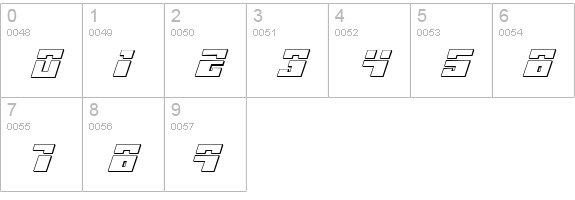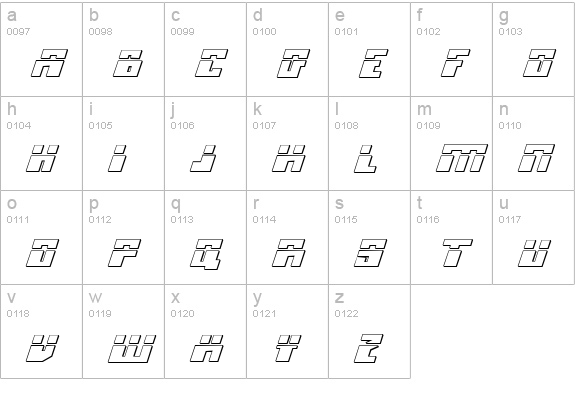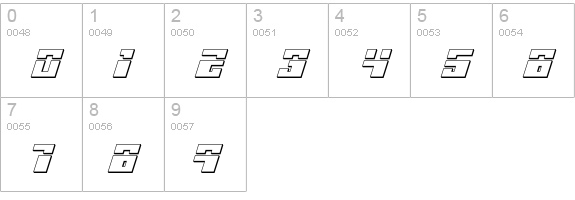
Micronian Laser 3D Italic is a distinctive, italic variant in the Micronian typeface family \xE2\x80\x94 well suited to design and typography projects.
Introducing Micronian Laser 3D Italic font - a futuristic and visually striking typeface that exudes a sense of modernity and innovation. This unique font features sleek lines and intricate details that give it a three-dimensional effect, making it perfect for adding a touch of sophistication to any design project. The Micronian Laser 3D Italic font is not only stylish and eye-catching but also versatile and easy to read, making it suitable for a wide range of applications, from branding and advertising to web design and print materials. Whether you're looking to make a bold statement or simply want to add a touch of flair to your text, this font is sure to impress. Best of all, the Micronian Laser 3D Italic font is available for free download at FontsMarket.com, giving you the opportunity to enhance your projects without breaking the bank. Don't miss out on this fantastic opportunity to elevate your designs with this stunning and contemporary font. Download Micronian Laser 3D Italic today and see the difference it can make!